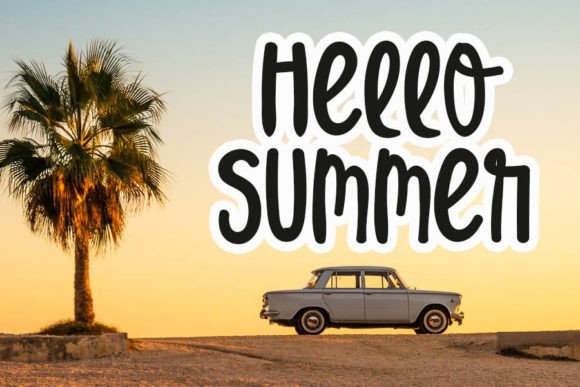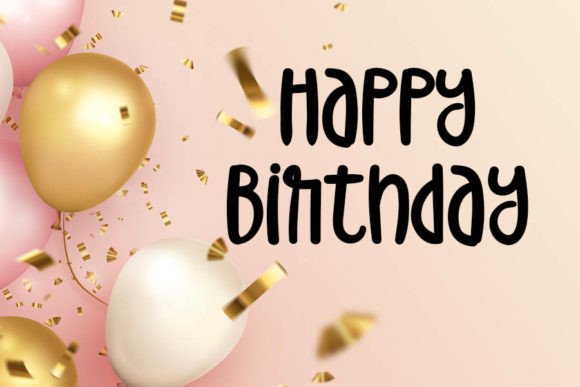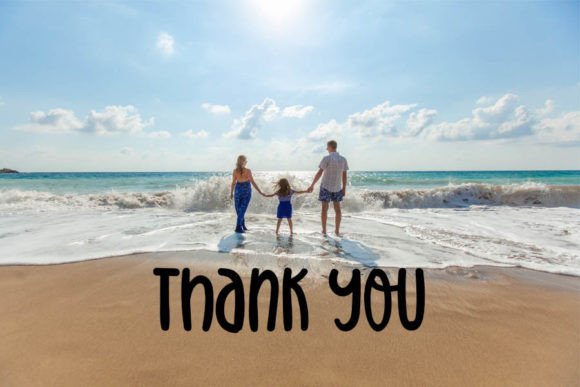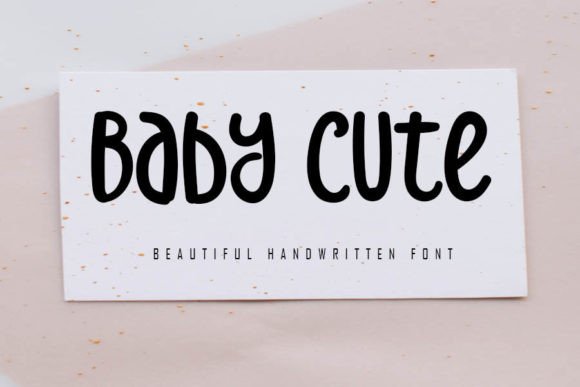
Baby Cute Font: The Ultimate Guide to This Charming Handwritten Font
Are you a designer or crafter looking for a font that can add a touch of whimsy and fun to your designs? Look no further than the Baby Cute Font! This adorable handwritten font is perfect for creating standout designs that are sure to capture the attention of your audience. In this article, we’ll take a closer look at the Baby Cute Font, its unique features, and how you can use it to elevate your designs.
What is Baby Cute Font?
Baby Cute Font is a fun and friendly handwritten font that is designed to bring a smile to your face. Its unique charm and character make it perfect for a wide range of design projects, from baby-themed designs to playful crafts. With its soft, rounded edges and bouncy curves, this font is sure to add a touch of sweetness to any design.
Key Features of Baby Cute Font
So, what makes Baby Cute Font so special? Here are just a few of its key features:
- Handwritten charm: Baby Cute Font has a distinctly handwritten feel that gives it a personal and friendly touch.
- Unique character: Each letter in the font has its own unique character and charm, making it perfect for creating designs that stand out.
- Soft and rounded edges: The font’s soft, rounded edges give it a gentle and soothing feel that’s perfect for baby-themed designs.
- Easy to read: Despite its playful feel, Baby Cute Font is easy to read and understand, making it perfect for use in a wide range of design projects.
How to Use Baby Cute Font in Your Designs
Now that we’ve covered the basics of Baby Cute Font, let’s talk about how you can use it in your designs. Here are a few ideas to get you started:
- Baby-themed designs: Baby Cute Font is perfect for creating baby-themed designs, such as birth announcements, baby shower invitations, and nursery decor.
- Playful crafts: This font is also great for creating playful crafts, such as DIY cards, gift tags, and scrapbook pages.
- Social media graphics: Use Baby Cute Font to create eye-catching social media graphics, such as Facebook posts, Instagram stories, and Pinterest pins.
- Logos and branding: This font can also be used to create logos and branding materials, such as business cards, letterheads, and brochures.
Tips for Getting the Most Out of Baby Cute Font
Here are a few tips for getting the most out of Baby Cute Font:
- Experiment with different colors: Baby Cute Font looks great in a wide range of colors, so don’t be afraid to experiment and find the perfect hue for your design.
- Pair it with other fonts: This font pairs well with other playful fonts, so try combining it with a bold font for a fun and playful look.
- Use it consistently: To create a cohesive look, use Baby Cute Font consistently throughout your design.
| Font Name | Baby Cute Font |
| Author | Snowman Studio |
In conclusion, Baby Cute Font is a fun and friendly handwritten font that’s perfect for designers and crafters looking to add a touch of whimsy to their designs. With its unique charm and character, this font is sure to capture the attention of your audience and leave a lasting impression. So why not give it a try and see how you can use Baby Cute Font to elevate your designs?
Get Inspired by Baby Cute Font
Still need inspiration for your designs? Here are a few ideas to get you started:
- Create a baby shower invitation: Use Baby Cute Font to create a sweet and playful baby shower invitation that’s sure to delight your guests.
- Design a nursery wall art: This font is perfect for creating nursery wall art, such as a custom monogram or a motivational quote.
- Make a DIY card: Use Baby Cute Font to create a custom DIY card for a special occasion, such as a birthday or holiday.